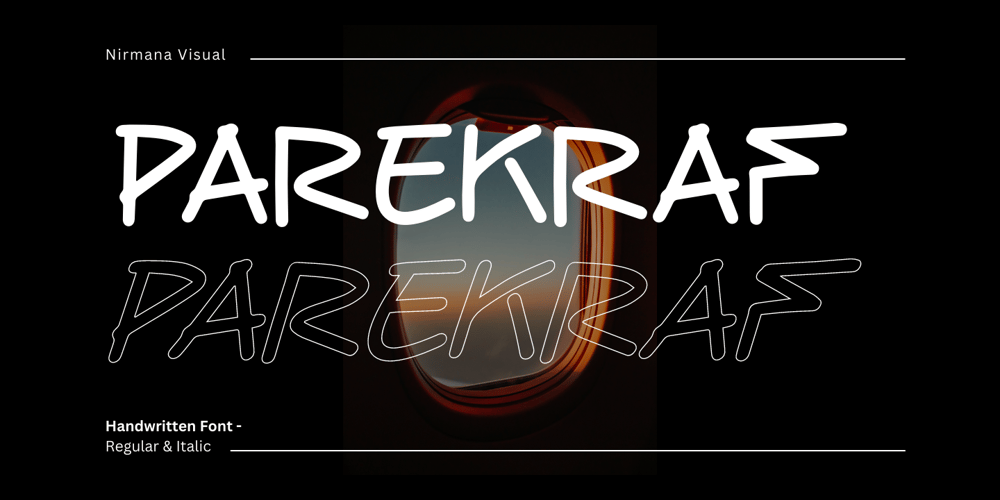
Parekraf Font Family was designed by Sigit Dwipa and published by Nirmana Visual. Parekraf contains 2 styles and family package options. Parekraf is a natural Handwritten typeface, with 2 style : Regular & italic.full set of lowercase and uppercase letters, numerals and punctuation, multilingual symbols.Very suitable for the title, logo, typography, clothes, magazines, brochures, packaging and much more for your design needs, making your designs more modern and professional.